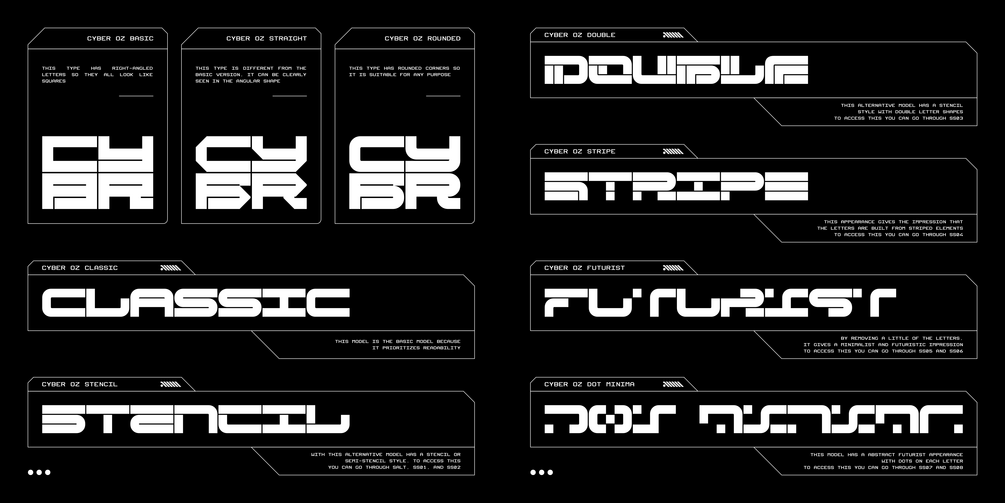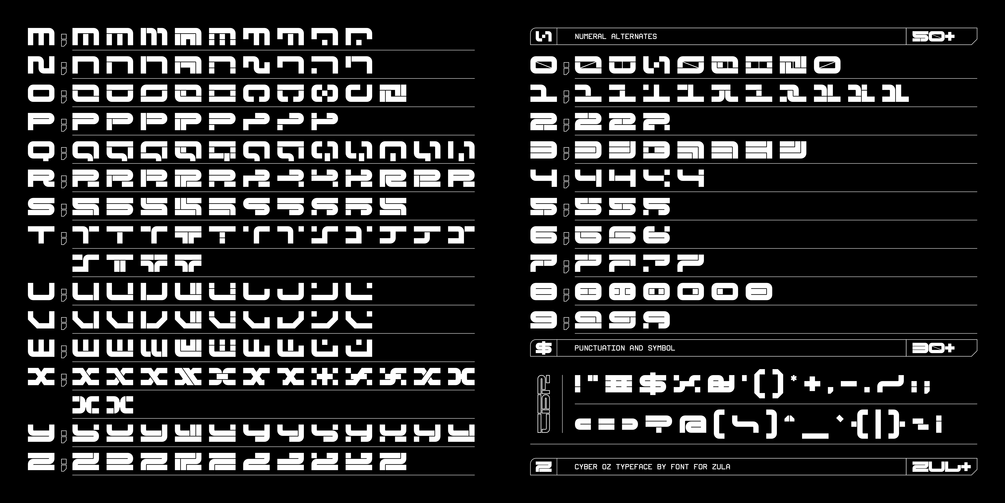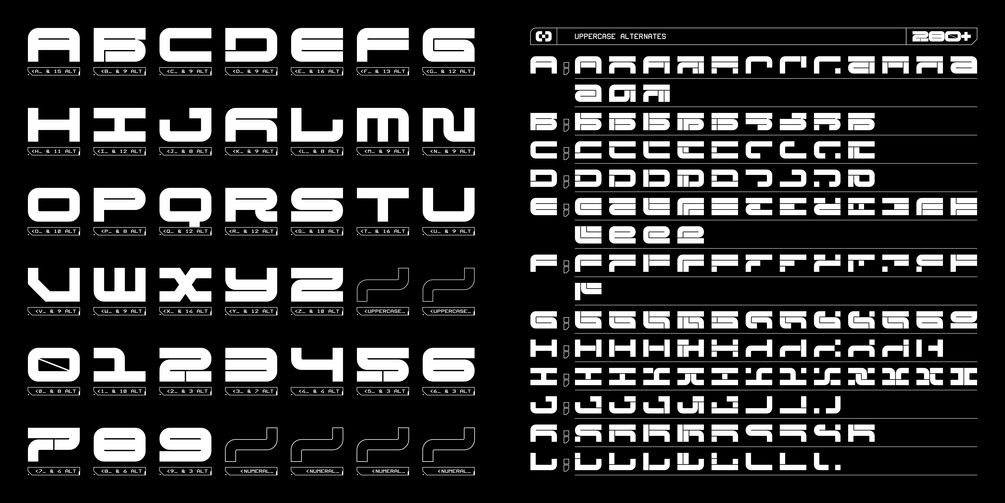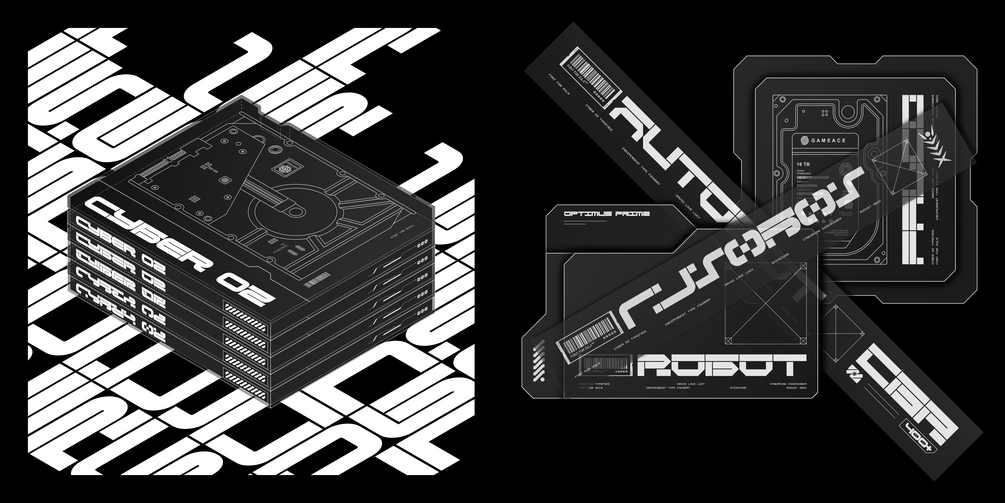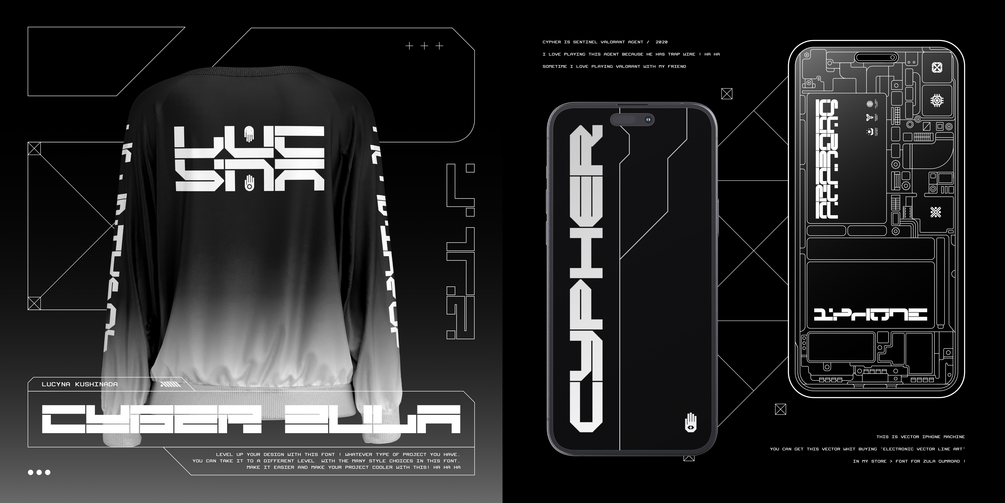
CYBER OZ FAMILY
Introducing CYBER OZ typeface, a font with a futuristic appearance with many features and models that make it suitable for various purposes and projects. Cyber ​​OZ has more than 400 glyphs, 282 alternative Uppercases, and 51 alternative Numerals. Among the many alternatives, Cyber ​​OZ has many looks, such as Classic, Stencil, Double, Stripe, Futurist and Minimalist. Type of style which are influenced by the shape of the angle of the letters are divided into three; Basic, Straight, and Rounded. These many features make you free to explore and experiment with this font in your projects.
CYBER OZ includes:
• 3 Styles: Basic, Straight, and Rounded
• 6 Models in Alternative Forms;
• Classic,
• Stencil, (Access with s.alt, ss01, and ss02)
• Double, (Access with ss03)
• Stripe, (Access with ss04)
• Futurist, (Access with ss05 and ss06)
• and Dot Minima. (Access with ss07 and ss08)
• 26 UPPERCASE
• 282 UPP Alternates
• 10 Numerals
• 51 Numeral Alternates
• Punctuation and symbols